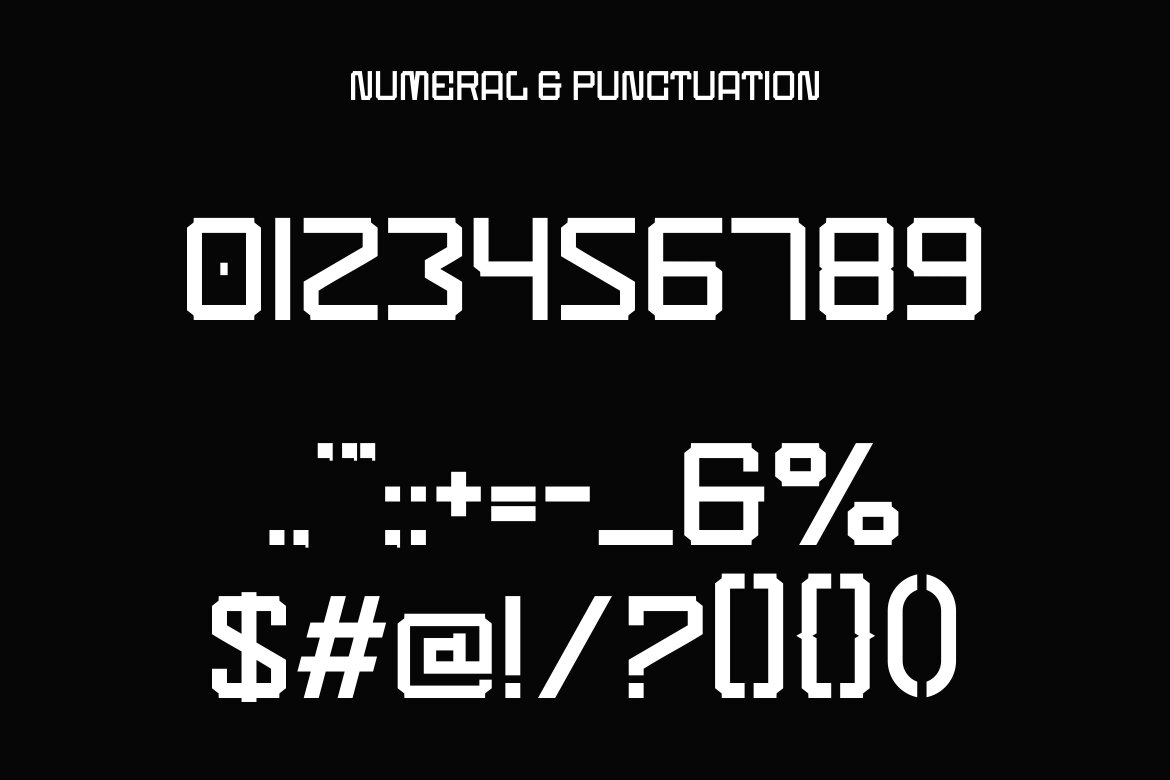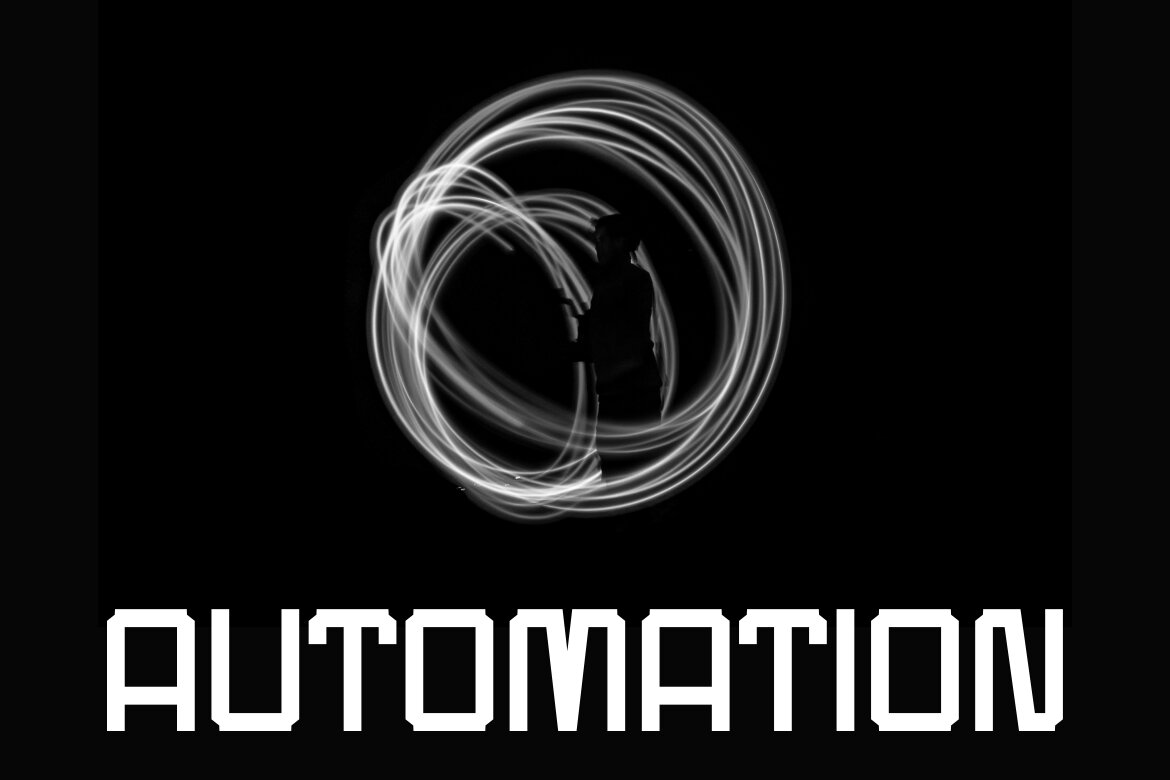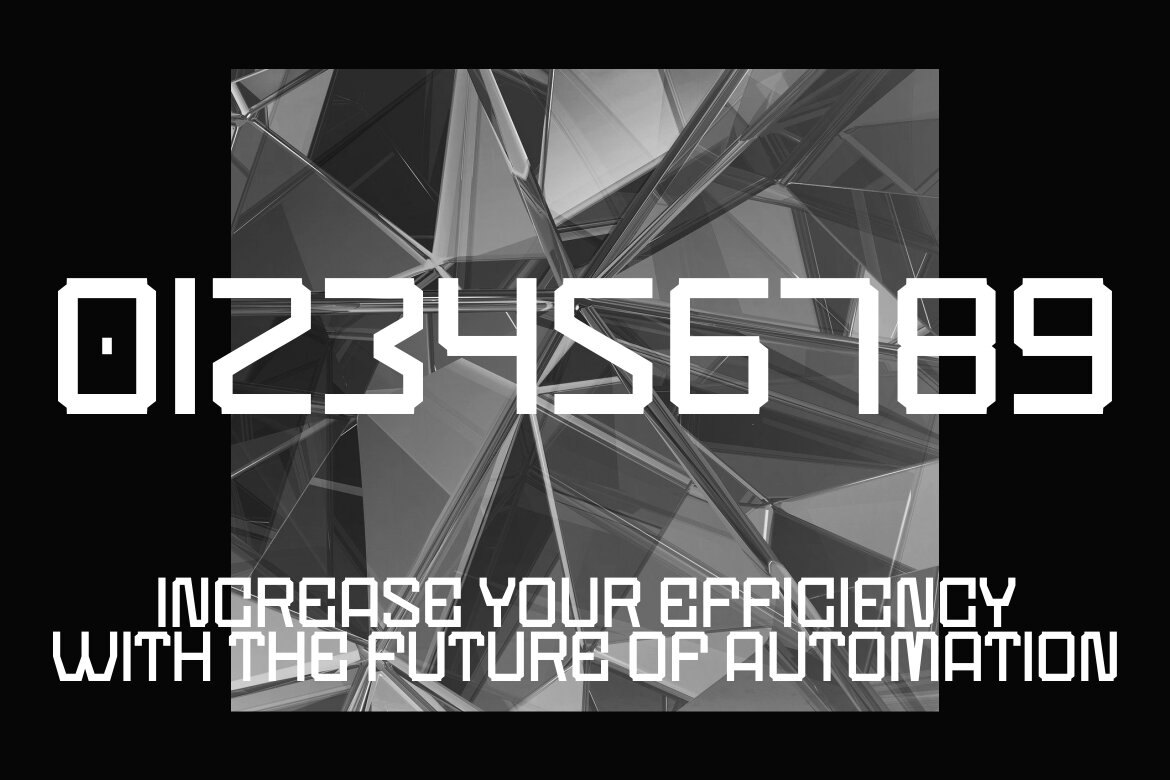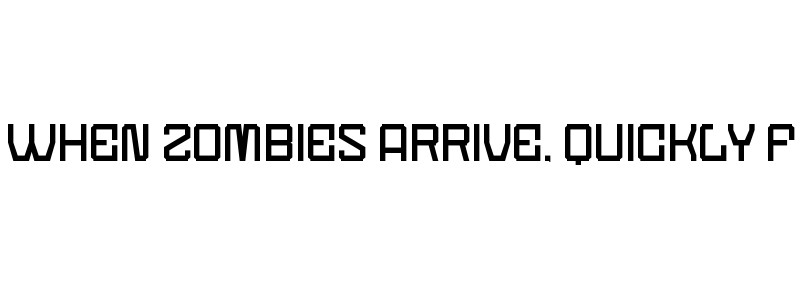
KIDBOMBA FREE Tech Font
KIDBOMBA preview
KIDBOMBA
KIDBOMBA is an authentic modern futuristic font that is perfect for professional and product branding needs. This font is suitable for any branding project such as quotes, logos, blog headers, posters, ribbons, letters, invitations, stationery, etc... It is designed to be versatile and flexible that can be used on a variety of projects and mediums. extraordinary in a variety of contexts.